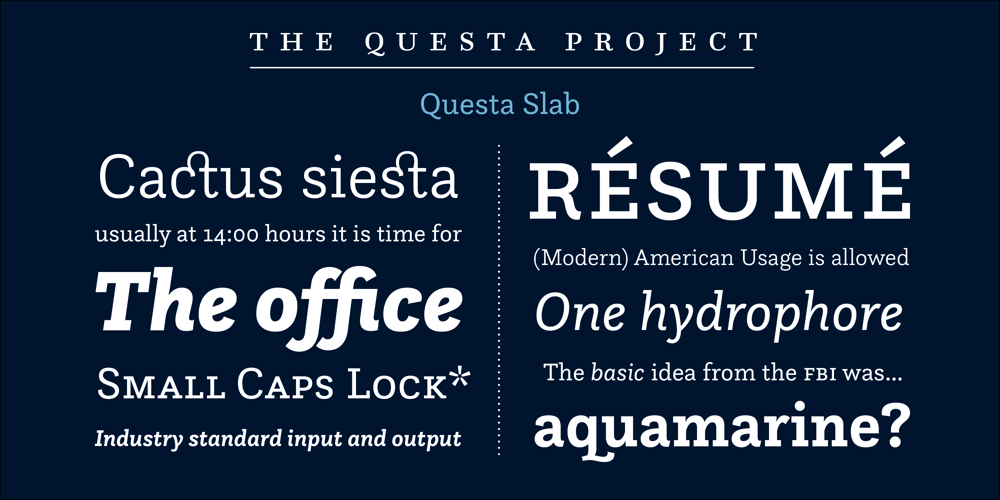
Questa Slab
Questa Slab font
Questa Slab Font Family was designed by Martin Majoor, Jos Buivenga and published by The Questa Project. Questa Slab contains 10 styles and family package options. Questa Slab is a slab serif font family. This typeface has ten styles and was published by The Questa Project.